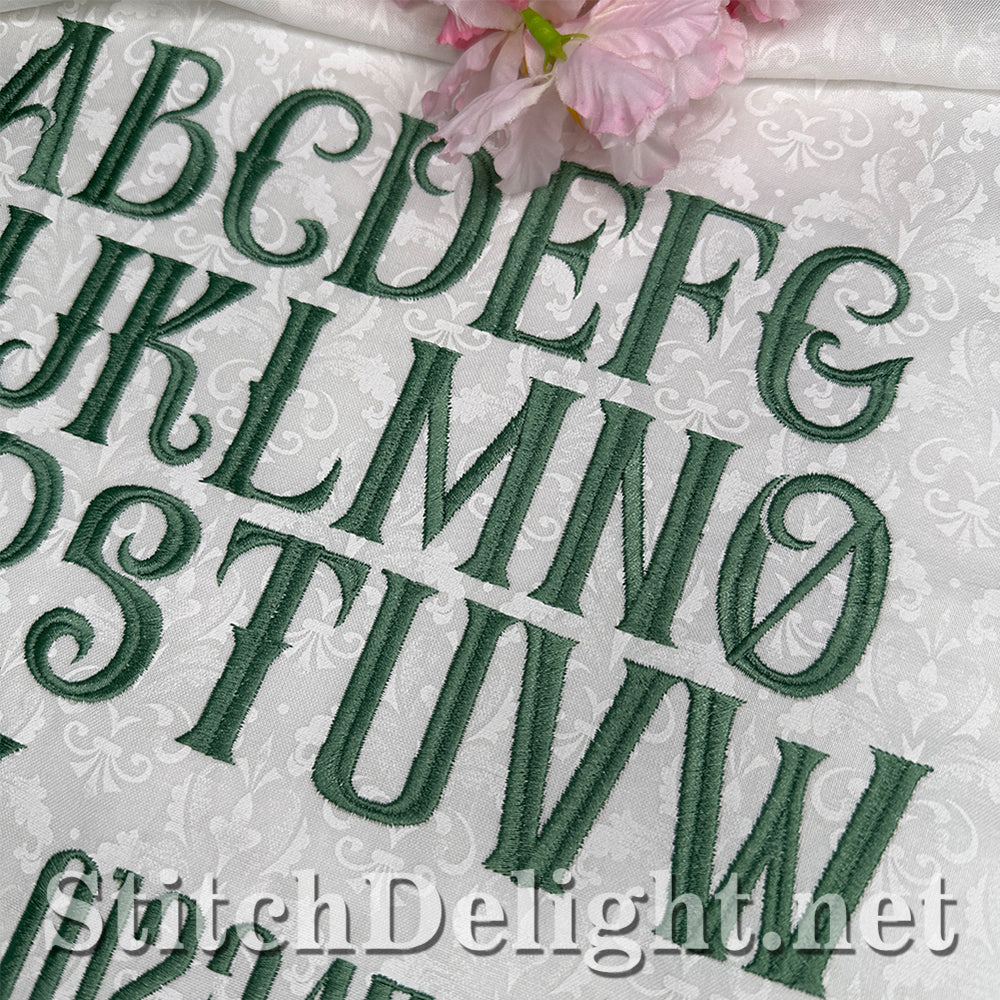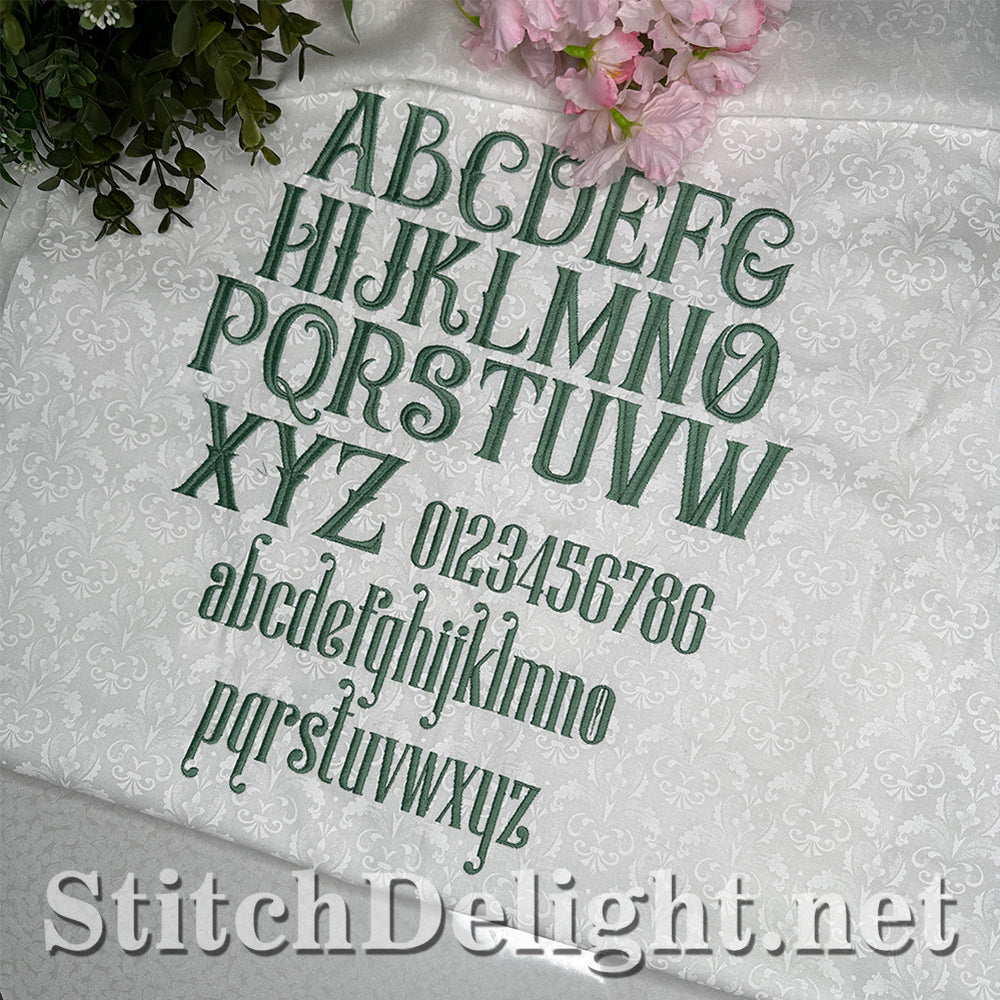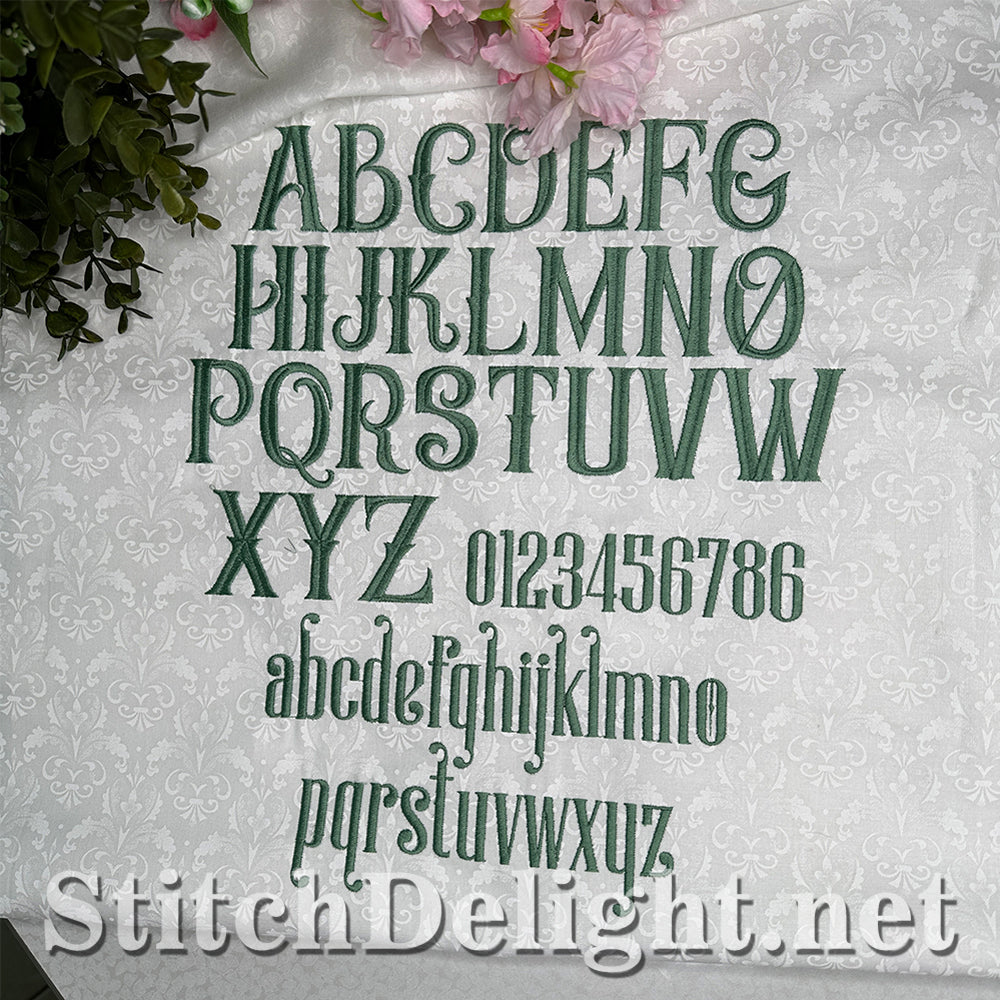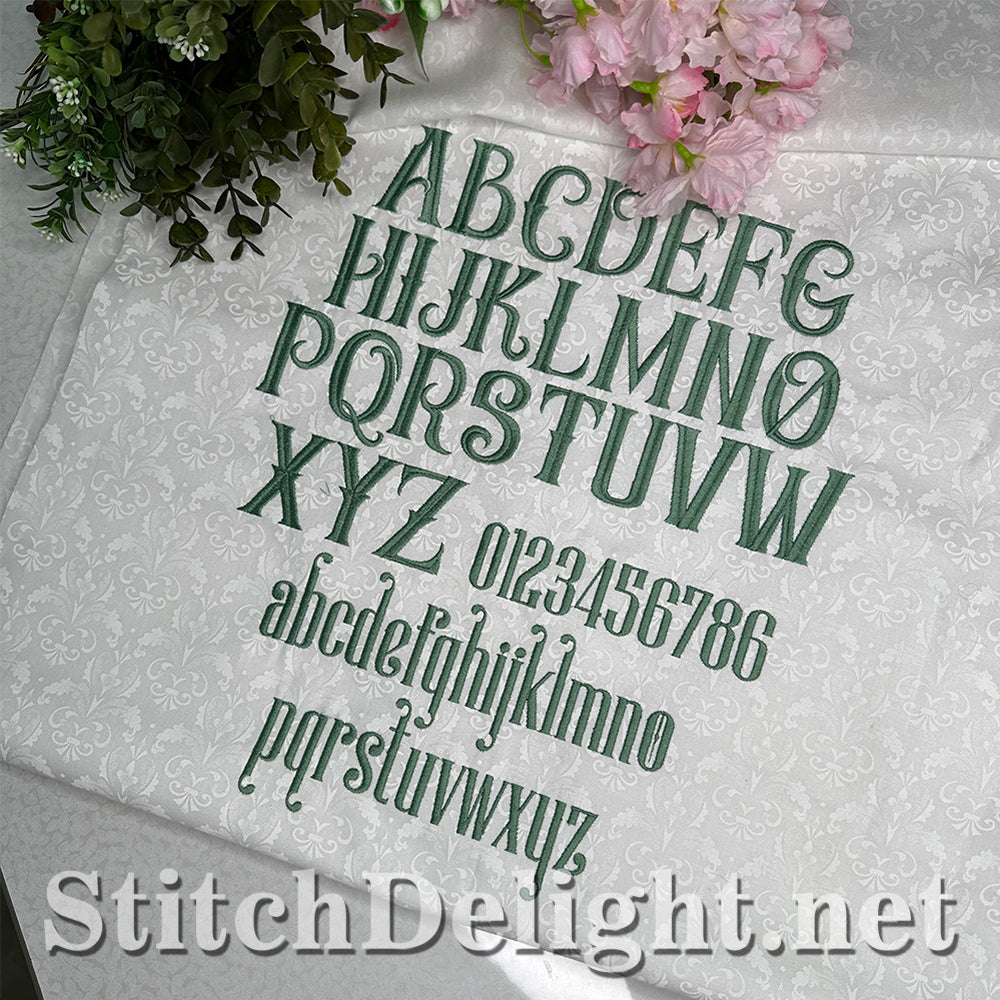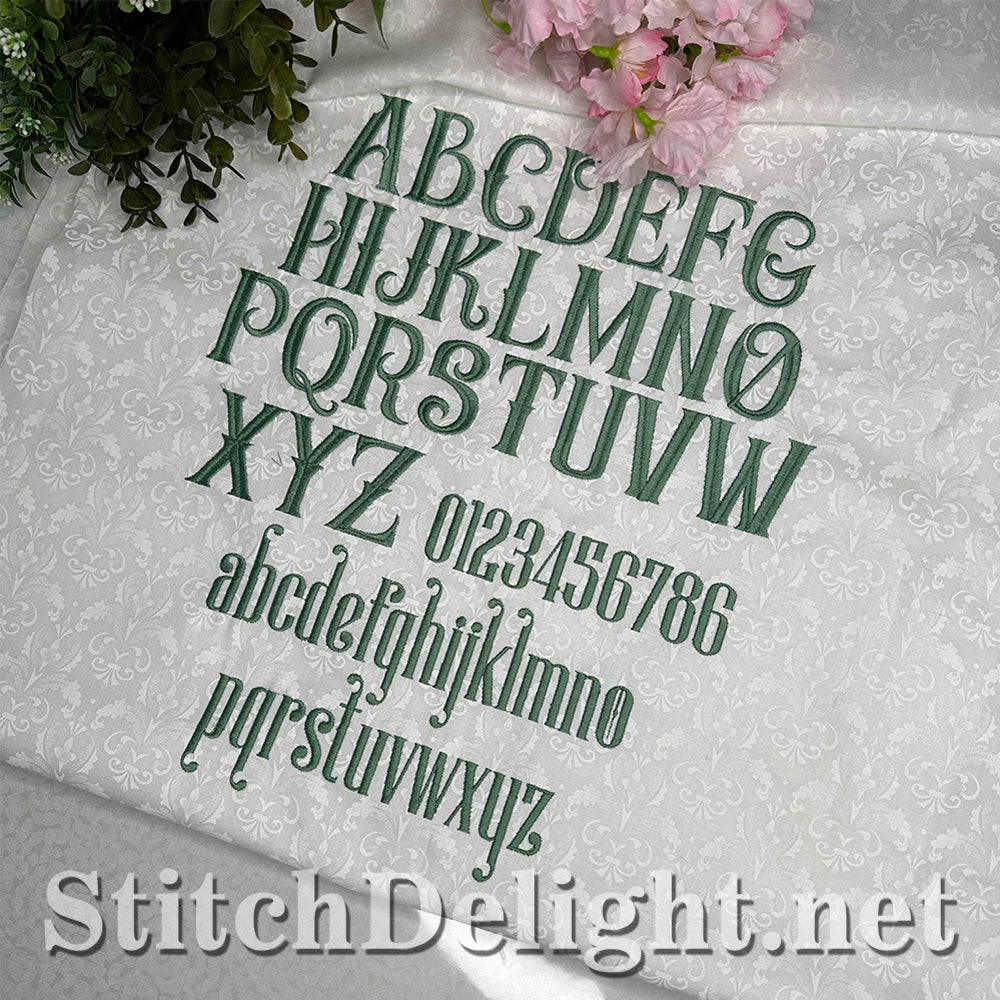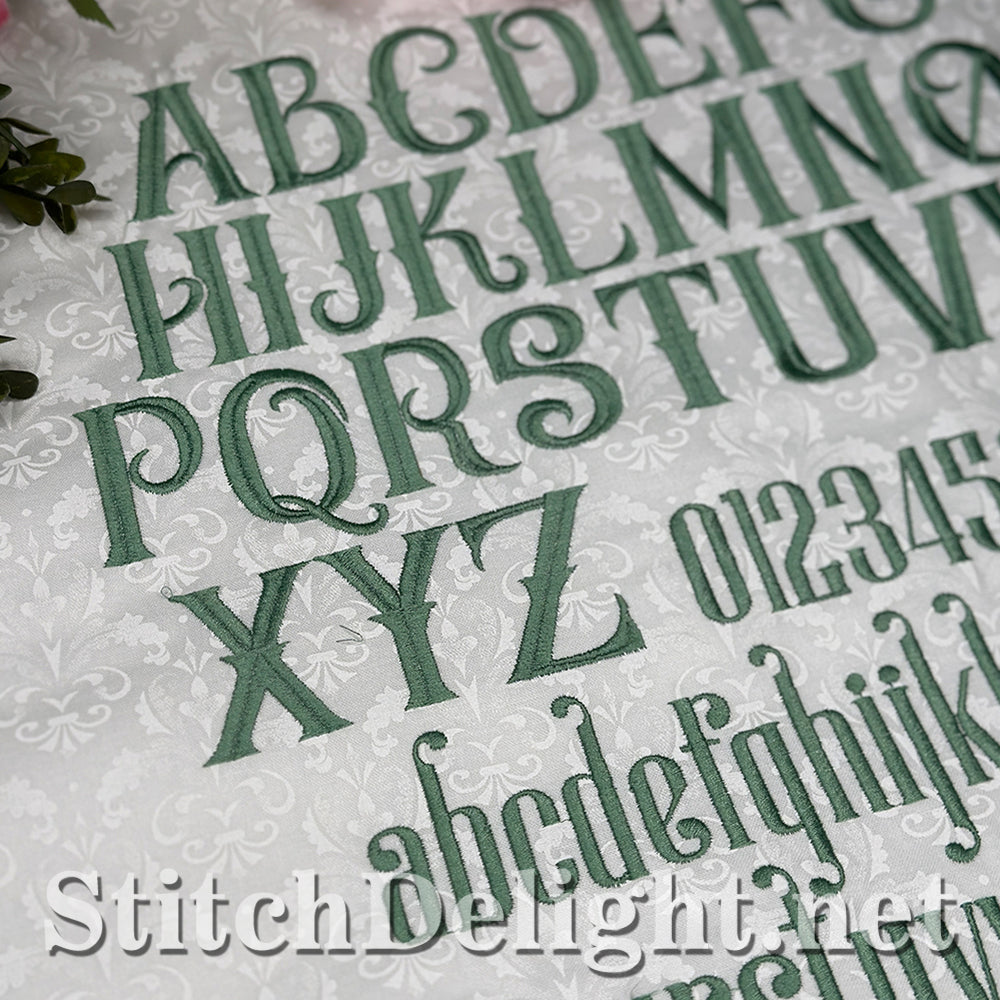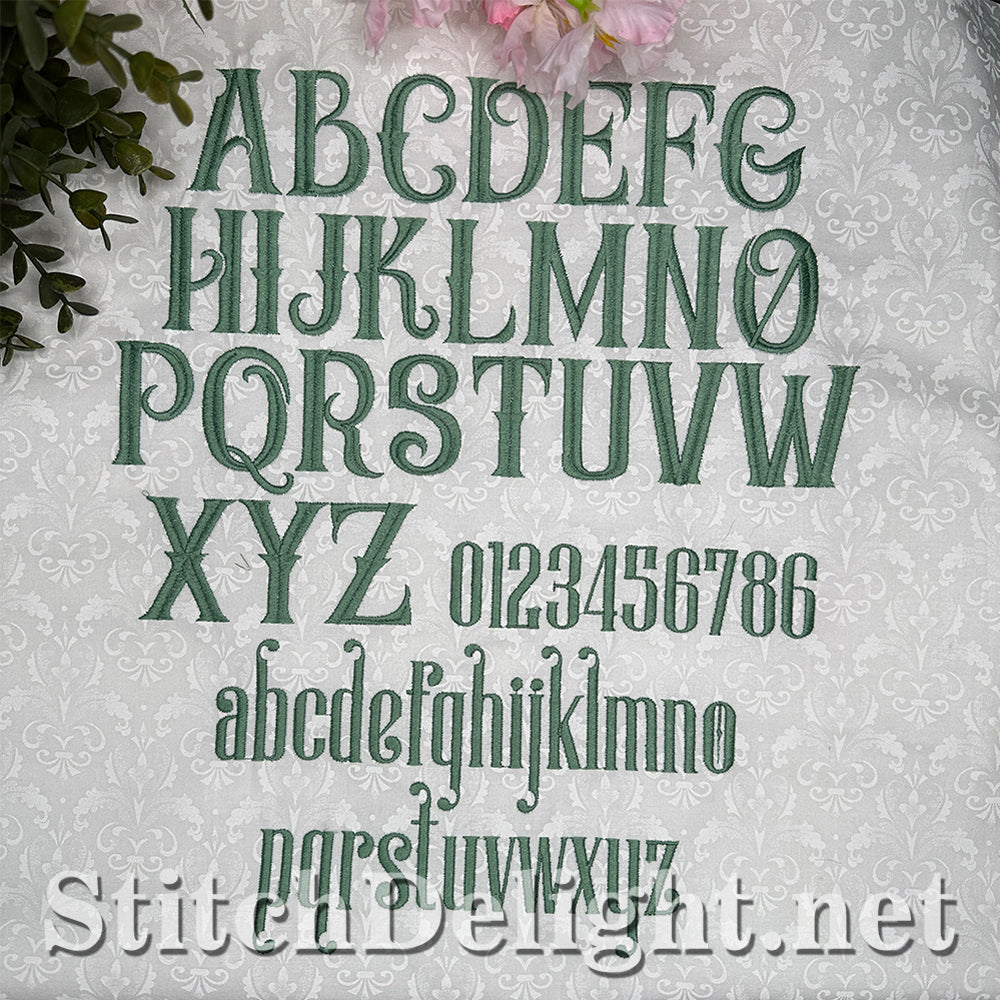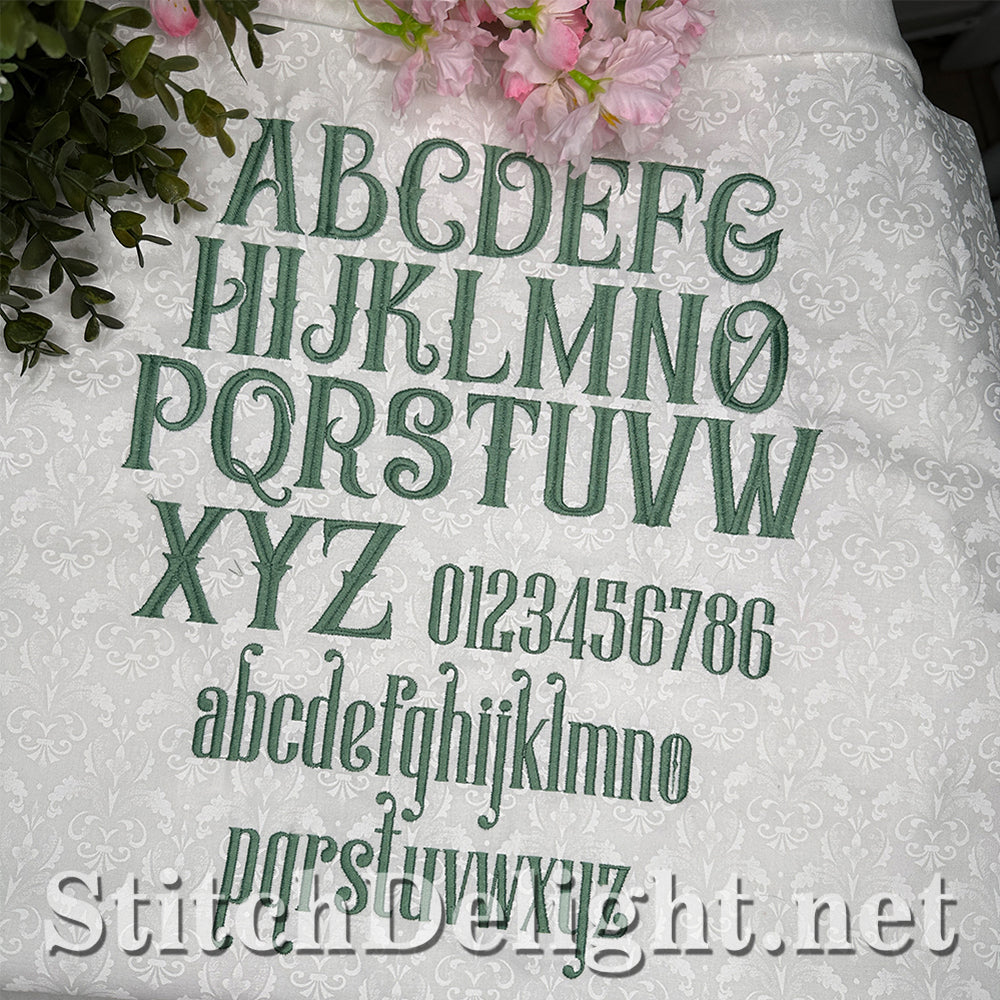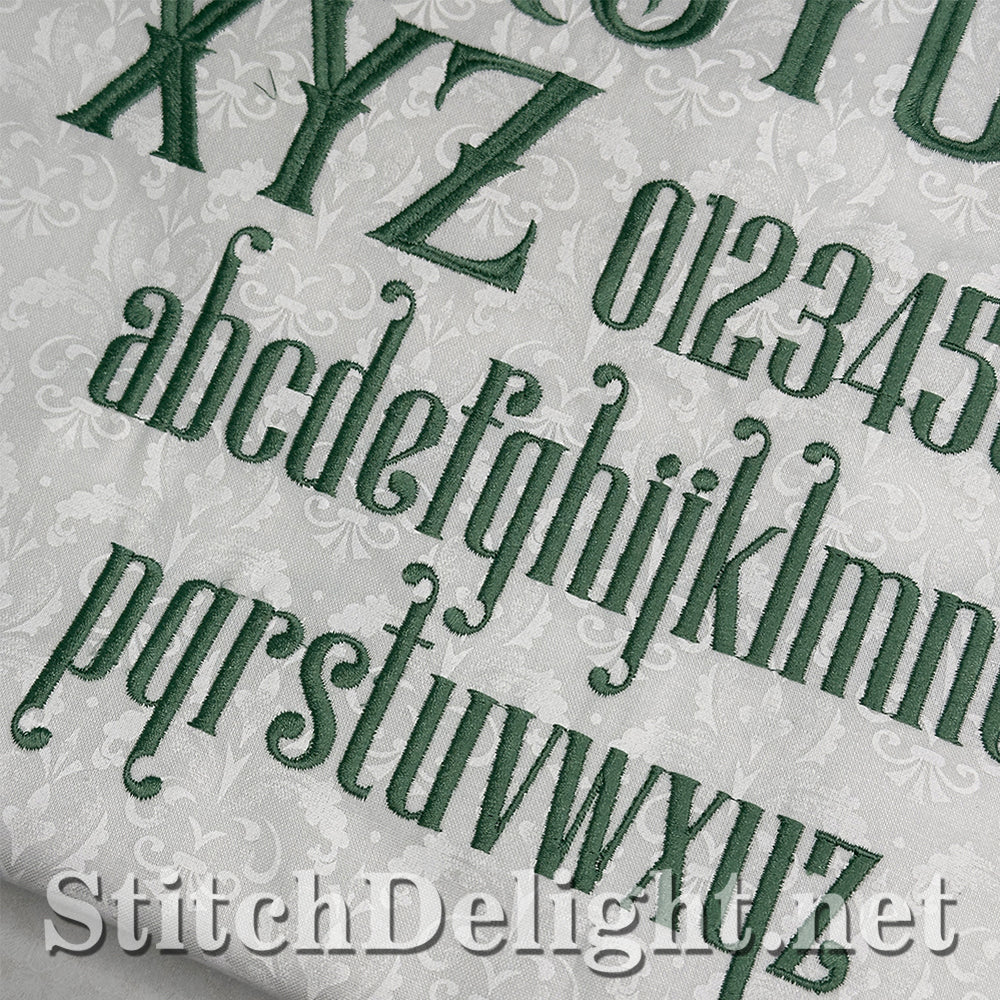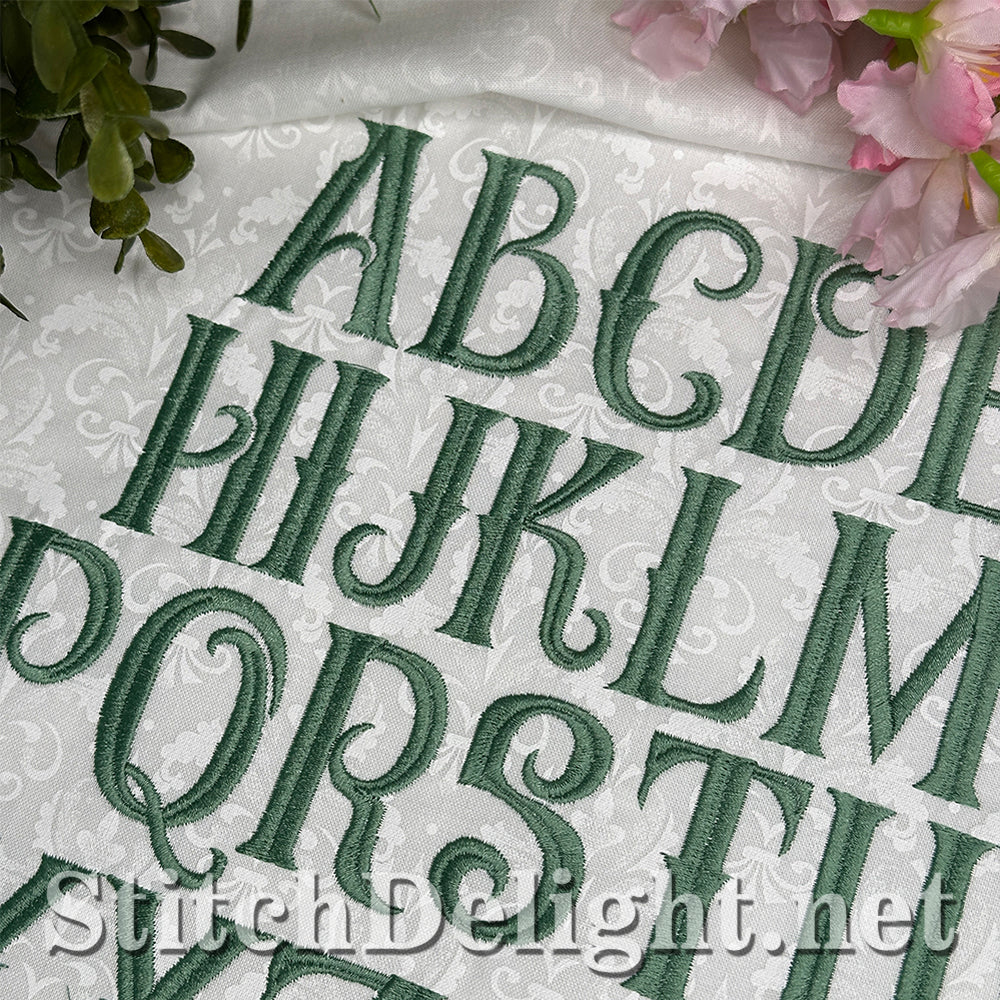
SDS4624 Country Vibes Font is a graceful embroidery font with elegant curls and flowing lines that add charm to any project. Its timeless style makes it perfect for personalizing with names, monograms, or meaningful text. This font pairs beautifully with our Posie Teddy Font, offering a seamless way to mix and match lettering styles for unique results.
This font has an average height of 2"